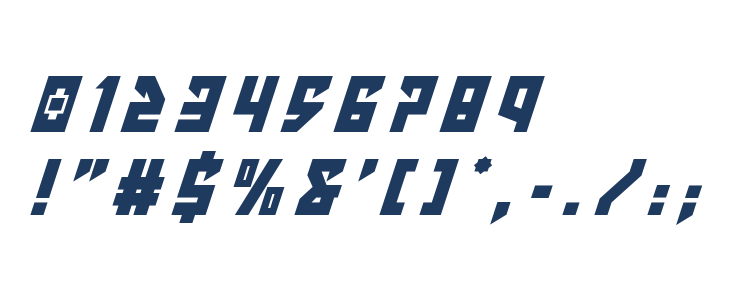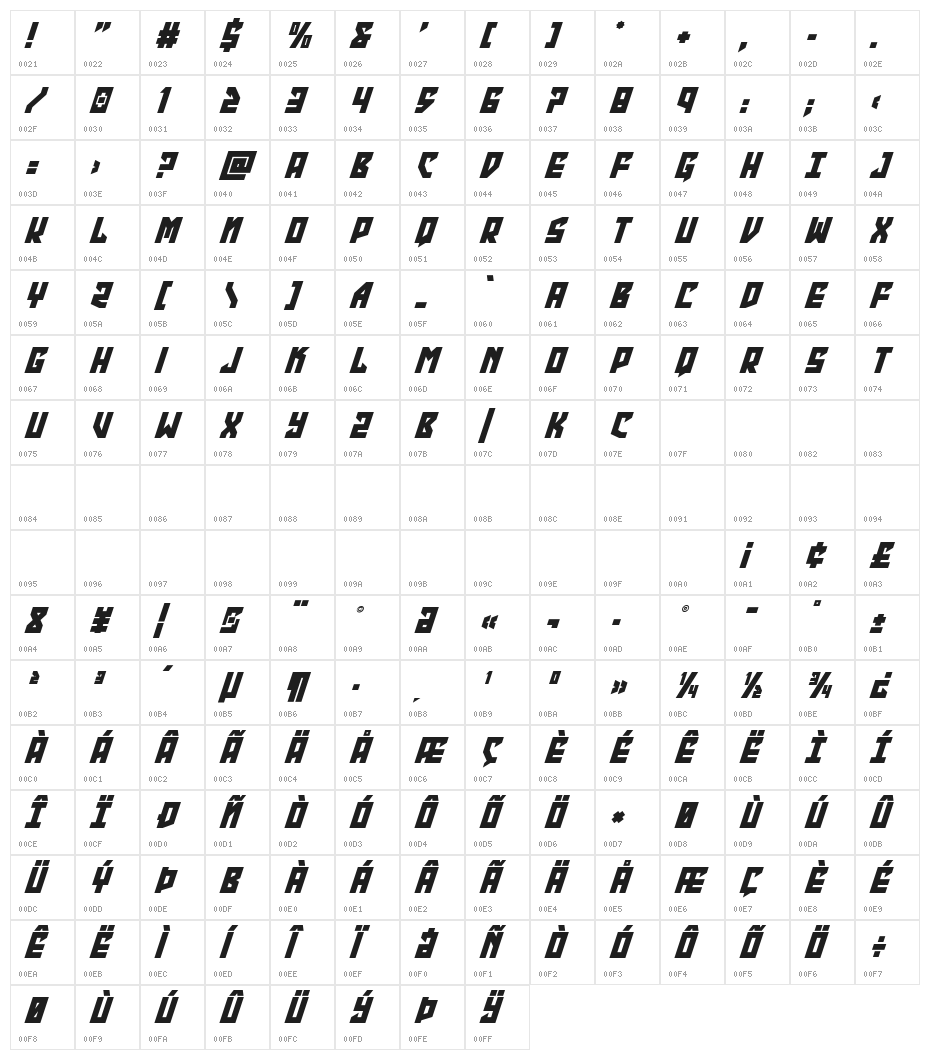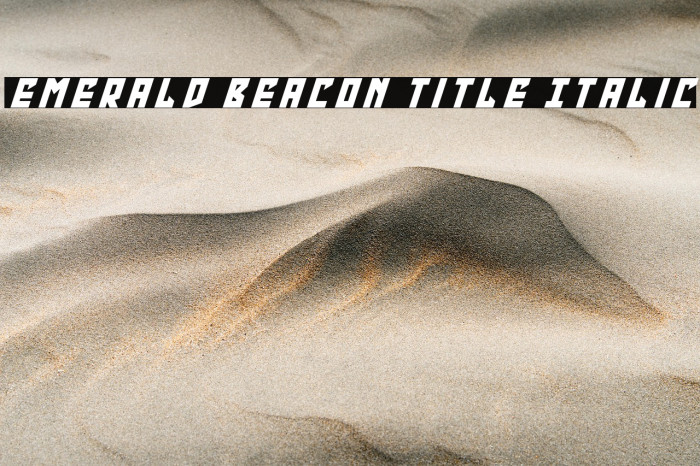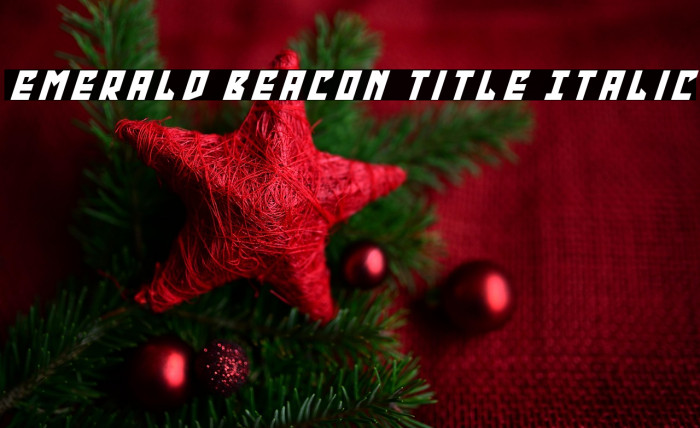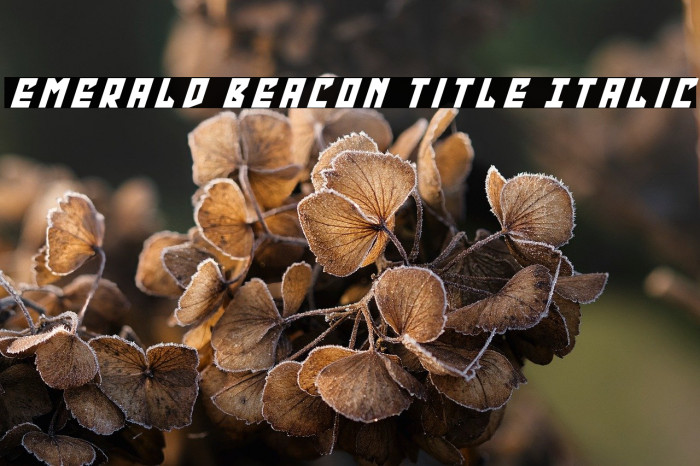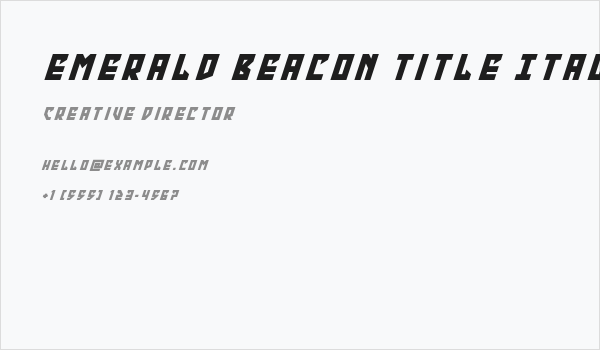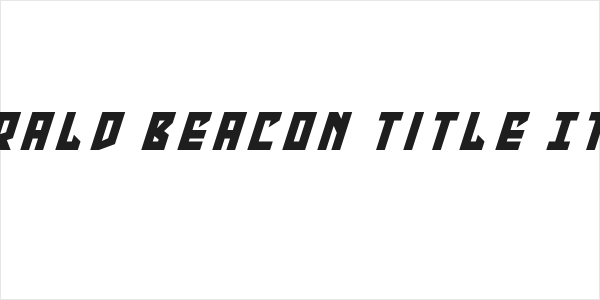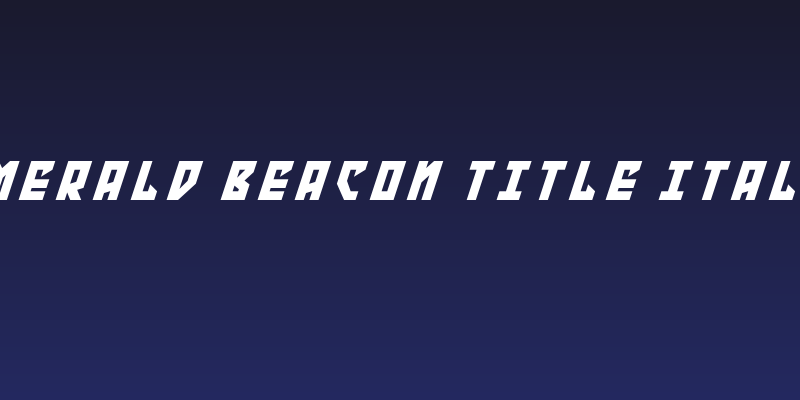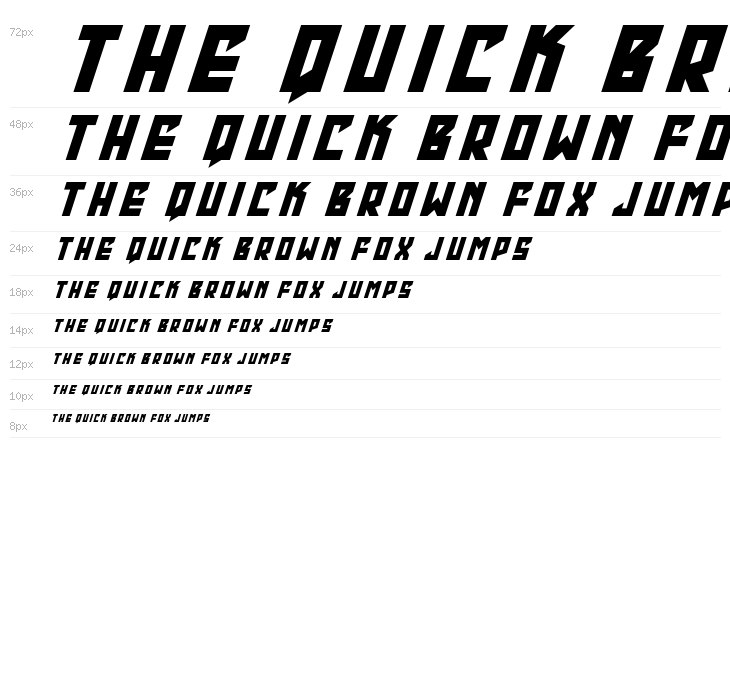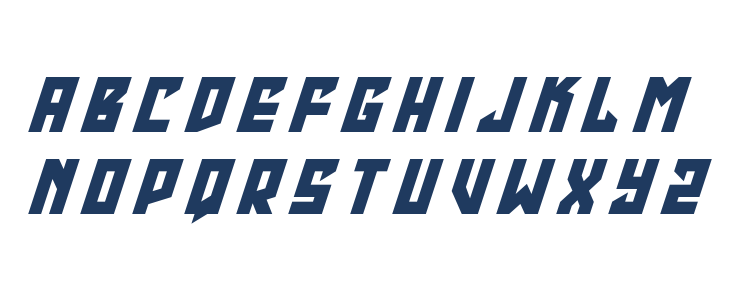
Emerald Beacon Title Italic Font
Emerald Beacon Title Italic Description
This font features a bold, angular design with a distinct italic slant, giving it a dynamic and energetic appearance. The characters are sharply cut with geometric precision, creating a futuristic and edgy look. The uppercase and lowercase letters maintain a consistent style, with each character exhibiting unique angles and cuts that enhance its boldness. The numbers and special characters follow the same design principles, ensuring uniformity across the font. The overall aesthetic is modern and impactful, making it suitable for attention-grabbing headlines and titles.